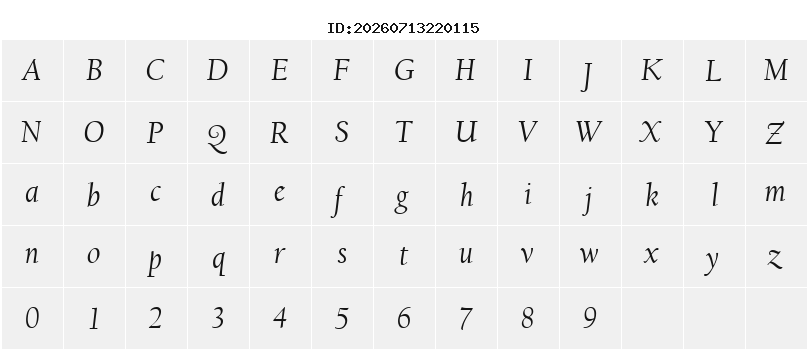
• Font Name: Californian FB
• Font Style: Italique
• Font ID: Californian FB Italic
• Full Font Name: Californian FB Italique
• PostScript Name: CalifornianFB-Italic
• Designer: David Berlow
• Manufacturer: The Font Bureau, Inc.
• Description: In 1938 Goudy designed California Oldstyle & Italic, perhaps his most distinguished typeface, for private use of the University of California Press. In 1958 Lanston reissued it generally as Californian. Recently the roman was digitized for California by Carol Twombly; David Berlow redrew it when preparing italic & expert sets. Bold was drawn by Jane Patterson for the Font Bureau, who used it privately for four years before release.